Review Of Fonts For Macbook Air 2022
Review Of Fonts For Macbook Air 2022. Preinstalled fonts ios 13 macos catalina; In an app on your mac, choose format > show fonts or format > font > show fonts.
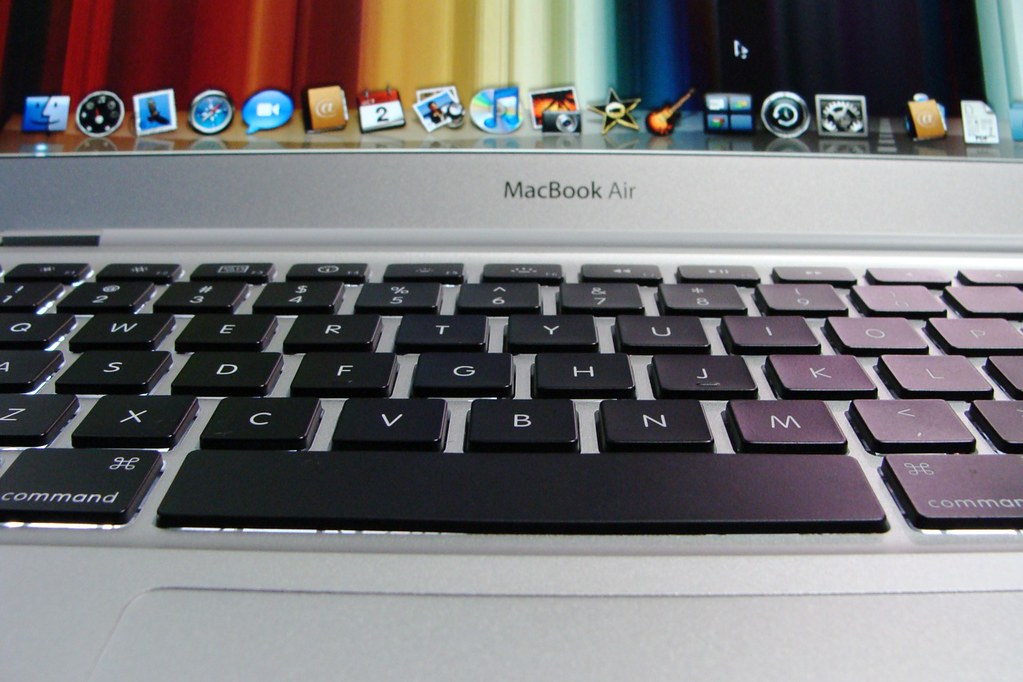
Sf pro features nine weights, variable optical sizes for optimal legibility, four. Now find and open the. The best monospaced mac fonts for developers are listed below:
Choose where to install fonts: The best monospaced mac fonts for developers are listed below: Sf pro features nine weights, variable optical sizes for optimal legibility, four.
The System Font Is Lucida Grande.
Click go in your mac’s menu bar, then click applications. Reply helpful of 1 what font is used on apple macbooks? How to create font collections and libraries.